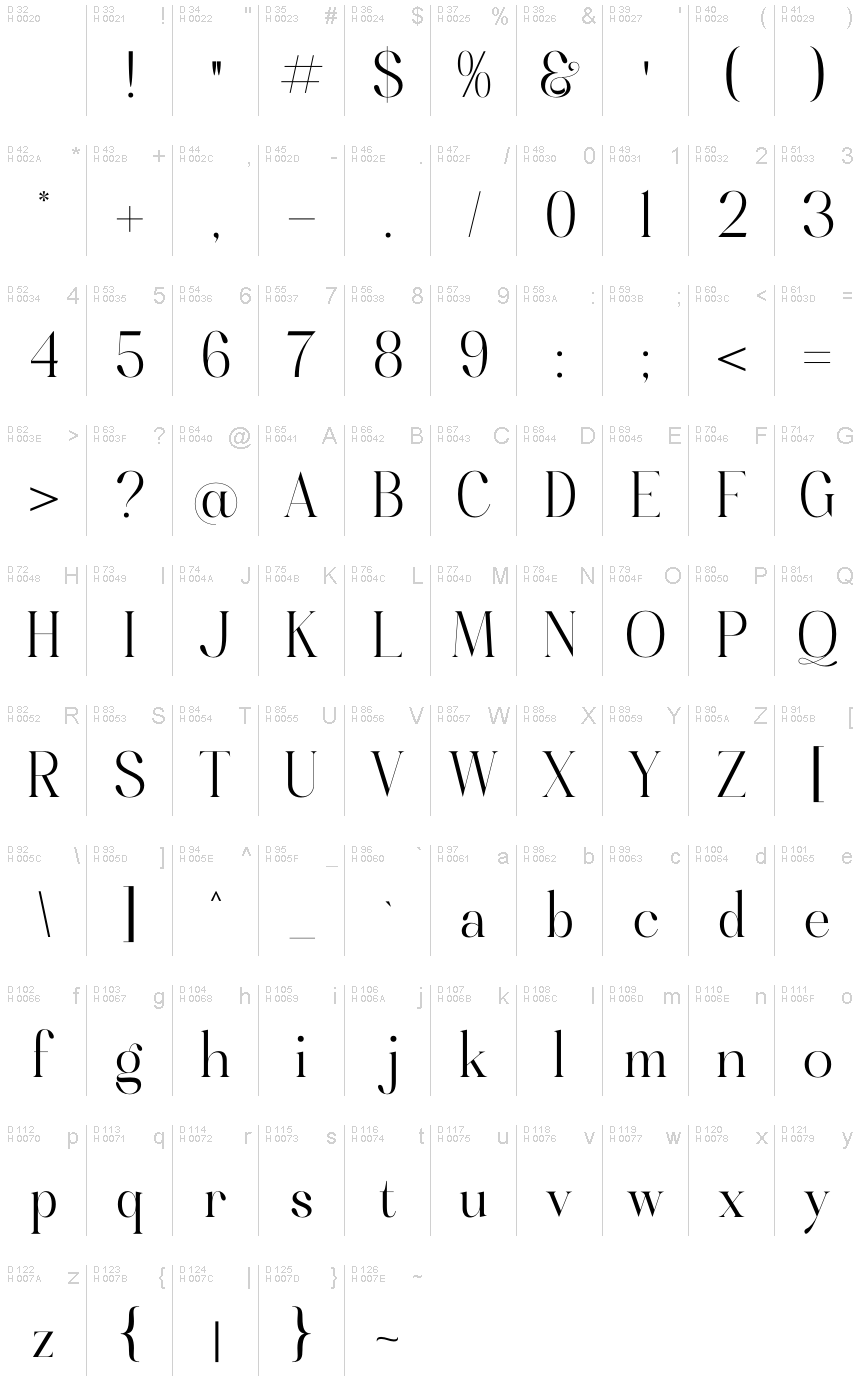
Mangleka
Mangleka font by Storytype Studio is a stunning serif font that captivates with its elegant light strokes and sophisticated design. It exudes a sense of refinement while maintaining an approachable charm, making it perfect for projects demanding both style and readability. The Mangleka font's graceful curves and precise lines echo modernity with a classic twist, ideal for branding, editorial design, or any creative endeavor seeking an air of elegance.
Whether used in print or digital formats, Mangleka’s subtlety makes it versatile for diverse applications. As a free font download, it's accessible to designers eager to elevate their work with high-end typography. Embrace the uniqueness of Mangleka to enhance your next project and captivate your audience's attention effortlessly.